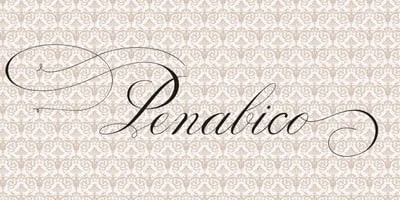
Penabico Font
Penabico Font is perfect for handwritten wedding invitations, personal branding projects, artistic logos, boutique signage, craft business cards, social media quotes, journal covers, children's book illustrations, creative packaging design, and organic product labels that require an authentic handcrafted appearance.
This font is exciting because it captures the natural flow and organic beauty of authentic handwriting with carefully crafted imperfections that make every character feel genuinely hand-drawn. Penabico Font features unique stroke variations and subtle texture that creates warmth and personality, making it ideal for projects that need to establish personal connection with audiences.
Penabico Font family includes Regular, Bold, Light, Italic, Brush, Script, and Decorative versions, along with hand-drawn flourishes, swashes, and ornamental elements that enhance the artisanal quality and provide extensive customization options for creative applications.
When creating authentic, personal designs, Penabico Font brings unmatched charm and character to your typography. The font's organic letterforms and natural spacing create a friendly, approachable aesthetic that works beautifully in both digital and print applications. Its handcrafted appearance adds credibility to artisan brands and creative businesses seeking to communicate authenticity. The character set includes contextual alternates and ligatures that simulate natural handwriting variations, preventing the mechanical look common in digital fonts. Professional designers value its ability to convey warmth and personality while maintaining excellent readability across various sizes and applications.